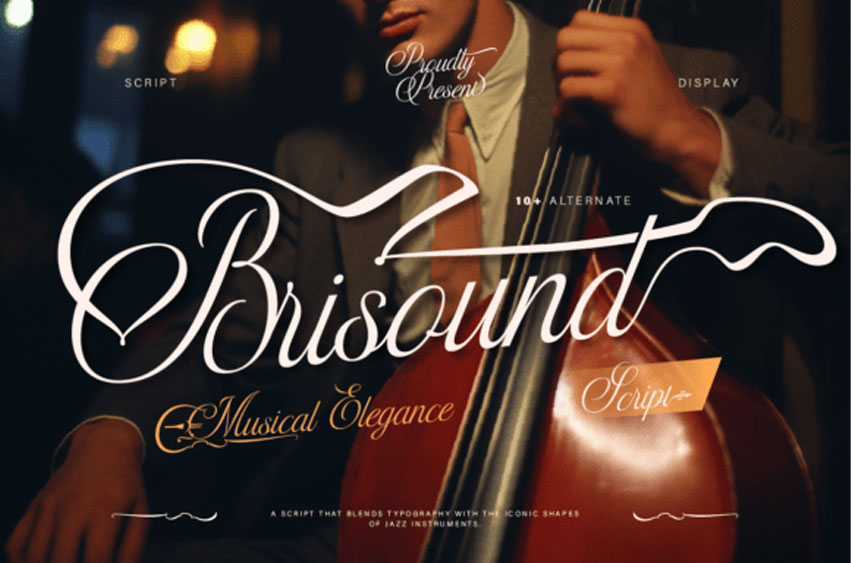
Brisound Font Experience the soulful rhythm of typography with Brisound, a display script that beautifully blends classical calligraphy with the iconic shapes of jazz instruments. Featuring over 10+ alternates, this typeface captures the “vibration” of a live performance, with sweeping loops that mimic the curves of a double bass and a rhythmic baseline that flows like a melodic solo. It is the definitive choice for brands wanting to communicate high-end artistry, musical heritage, and effortless cool.
Best Used For: Jazz club branding, classical music festival posters, instrument manufacturer logos, and upscale lounge identities.